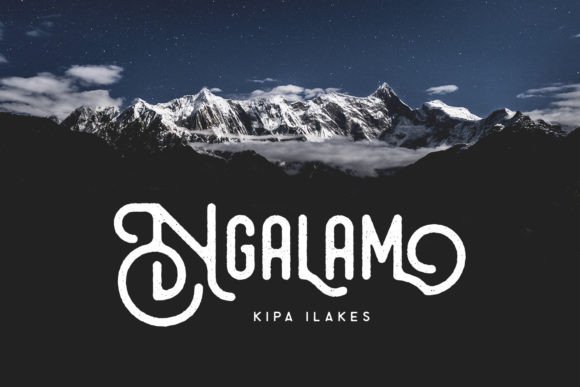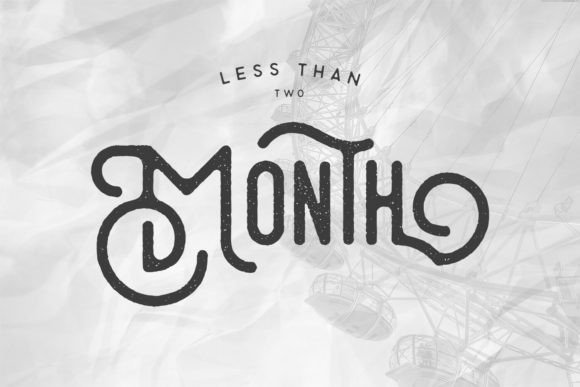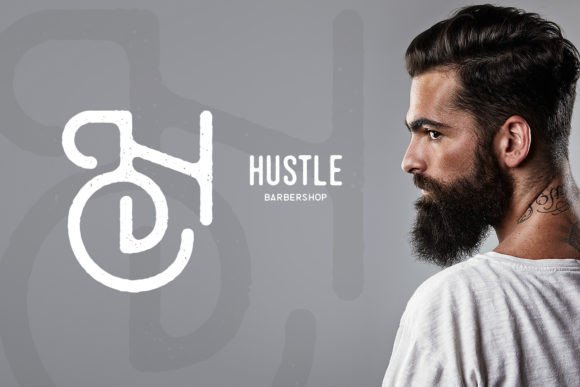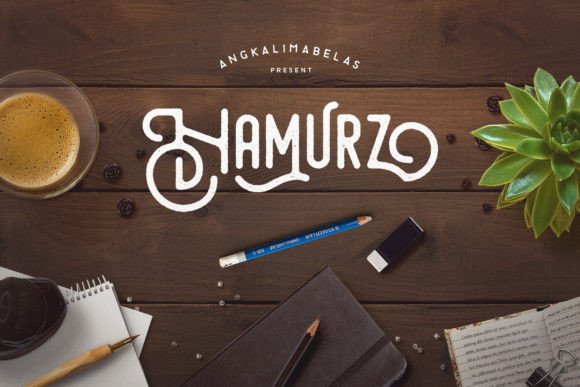
Introducing Hamurz Font: Elevate Your Designs with Sophistication and Playfulness
In the world of typography, fonts play a crucial role in conveying the tone and personality of a design. For designers and crafters looking to add a touch of elegance and whimsy to their projects, Hamurz Font is an exceptional choice. This captivating display font seamlessly blends sophistication with a hint of playfulness, making it perfect for a wide range of creative endeavors.
The Unique Charm of Hamurz Font
Hamurz Font boasts stylish, elongated letterforms that exude refinement and poise. Its intricate details add a layer of depth and visual interest, setting it apart from more conventional typefaces. Whether you’re working on a headline, logo, or any other design project that requires a distinctive and elegant font, Hamurz is sure to make a lasting impression.
Key Features of Hamurz Font
• Sophisticated yet Playful: Hamurz strikes the perfect balance between elegance and whimsy, making it versatile enough for various design applications.
• Elongated Letterforms: The font’s stylish, elongated letters add a touch of sophistication and luxury to any design.
• Intricate Details: Hamurz’s intricate details provide a level of depth and visual interest that can elevate your designs.
• Perfect for Display: Designed as a display font, Hamurz shines in headlines, logos, and titles, where its unique charm can be fully appreciated.
Applications of Hamurz Font
Hamurz Font’s versatility makes it suitable for a variety of design projects. Here are some of the best ways to use Hamurz:
• Headlines and Titles: Use Hamurz to create eye-catching headlines and titles that demand attention.
• Logos and Branding: The distinctive and elegant nature of Hamurz makes it an excellent choice for logos and branding materials.
• Posters and Flyers: Add a touch of sophistication and playfulness to your posters and flyers with Hamurz.
• Digital Media: Hamurz can also be used in digital media, such as website headers, social media graphics, and more.
Tips for Using Hamurz Font Effectively
To get the most out of Hamurz Font, consider the following tips:
• Pair with Simpler Fonts: For body text, pair Hamurz with simpler, more readable fonts to create visual contrast.
• Experiment with Colors: Hamurz looks great in a variety of colors, so don’t be afraid to experiment and find the perfect hue for your design.
• Adjust Letter Spacing: Adjusting the letter spacing can help you achieve the desired look, from compact and sleek to airy and elegant.
Hamurz Font is a remarkable typeface that can add a dash of flair to any design project. Its unique blend of sophistication and playfulness makes it an excellent choice for designers and crafters looking to create distinctive and elegant designs. Whether you’re working on a headline, logo, or any other creative endeavor, Hamurz is sure to elevate your visual storytelling with its captivating charm.